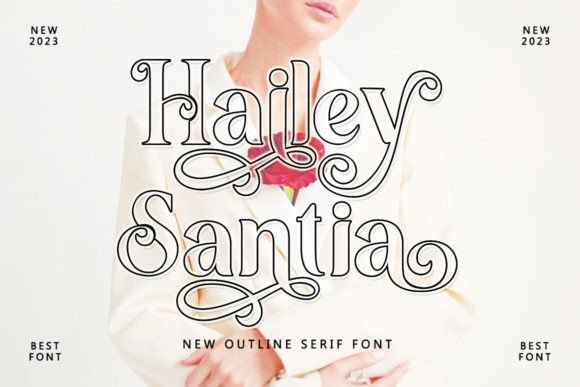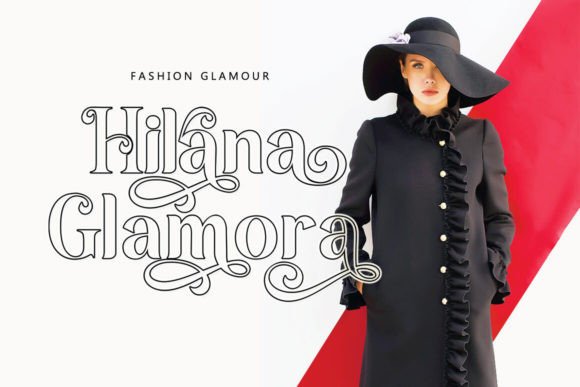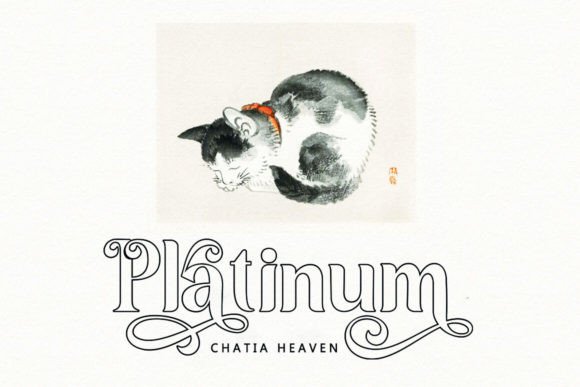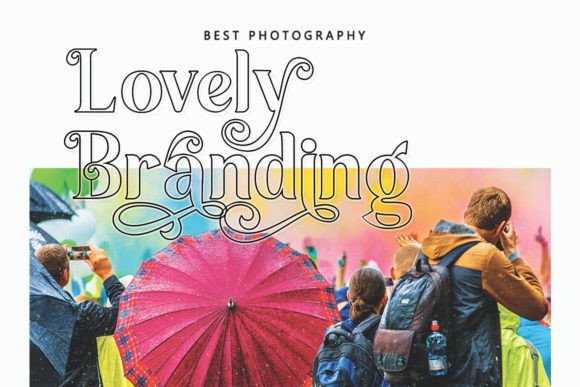
Hailey Santia Font: Elegant & Unique Serif for Logo Design
About the Hailey Santia Font
Presenting Hailey Santia Font, a unique and stylish typeface that will make your work stand out. Hailey Santia Outline is a beautiful and versatile serif font. This font is characterized by a serif style with a luxurious style in a modern form, but also a friendly and cheerful style in bold, Hailey Santia Outline has glyphs to give crafters more choices in designing. This modern style will make a design appear more classy, elegant, unique and edgy.
Hailey Santia Outline is a font suitable for many projects, for modern or even retro vintage designs, branding, logos, crafts, stickers, sublimation, wedding invitations and much more. This font is suitable for various projects such as logos, branding, magazines, signage, fashion, and many more.
Hailey Santia Font Usage Examples
Hailey Santia Font Example